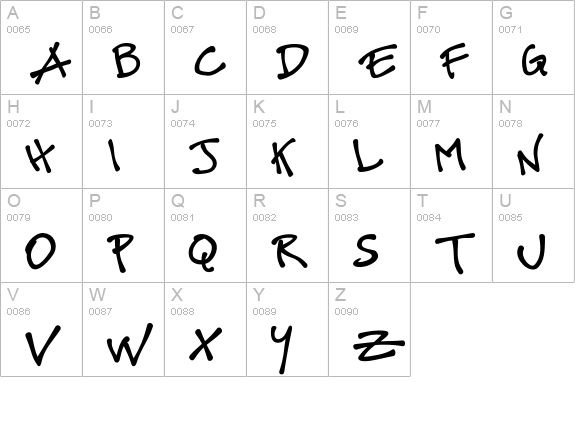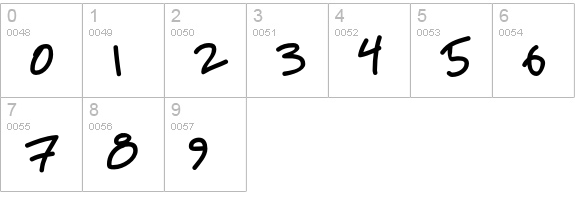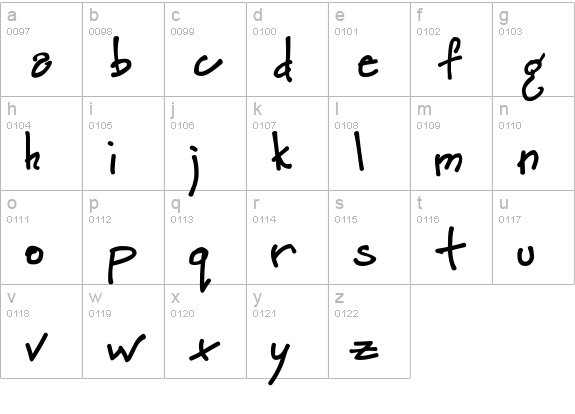
Petescript Font Details
Introducing Petescript, a beautifully crafted font that combines elegance and playfulness in perfect harmony. This versatile typeface is the perfect choice for any project that calls for a touch of sophistication and a dash of whimsy. Petescript features a unique blend of curvaceous lines and fluid strokes, creating a sense of movement and grace. Its letterforms effortlessly flow together, creating a seamless and cohesive look. Whether used for headlines, titles, or body text, Petescript adds a touch of personality and charm to any design. But what sets Petescript apart from other fonts is its incredible affordability. That's right, Petescript is free! You can freely download this font from FontsMarket.com, ensuring that you have access to a high-quality typeface without breaking the bank. Designed with versatility in mind, Petescript is suitable for a wide range of projects. From branding and packaging to invitations and signage, this font adapts to any style or theme effortlessly. Its timeless design ensures that your creations will stand the test of time, making Petescript the perfect choice for both personal and professional endeavors. So, why settle for ordinary when you can have extraordinary? Download Petescript today for free at FontsMarket.com and discover the power of this remarkable font. Unleash your creativity and let Petescript guide you on a journey of limitless possibilities.